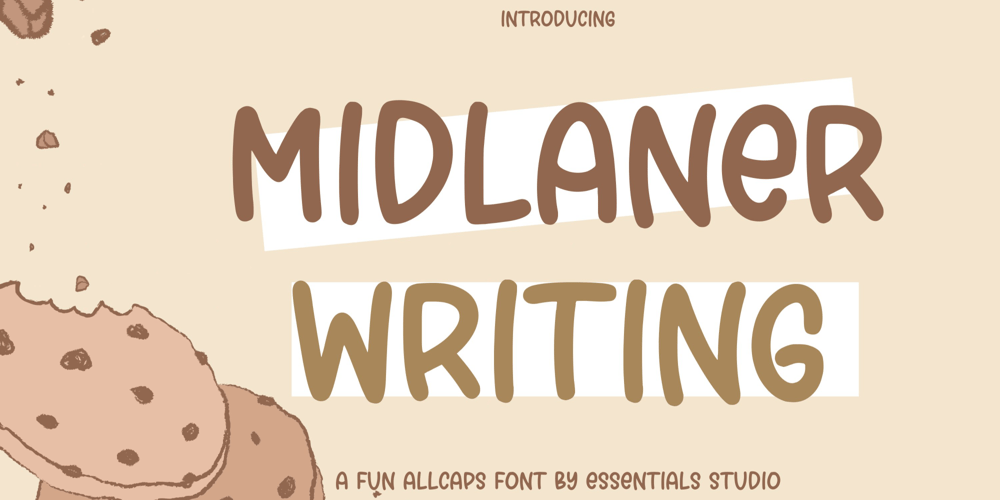
Midlaner Font Family was designed by Sulthan Mada Maulana Tsani and published by Essentials Studio. Midlaner contains 1 styles and family package options. introducing by Essentials StudioProudly Present, MIDLANER Is a A All Caps Monoline Handwritten FontMIDLANER is perfect for product packaging, branding project, megazine, social media, wedding, or just used to express words above the background.